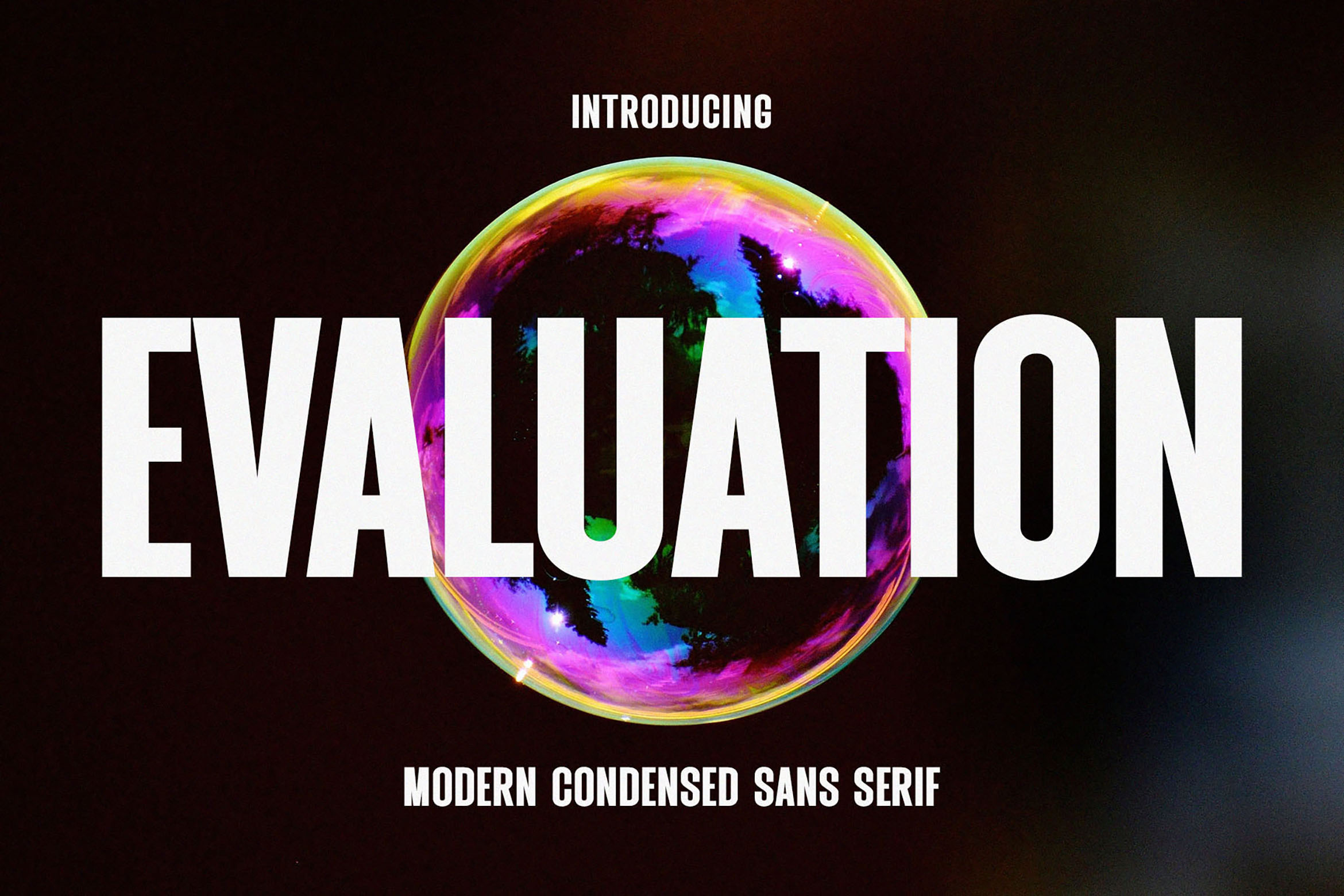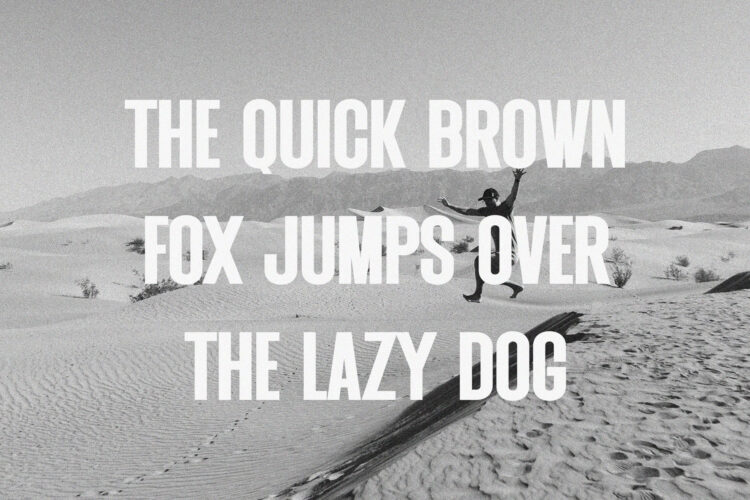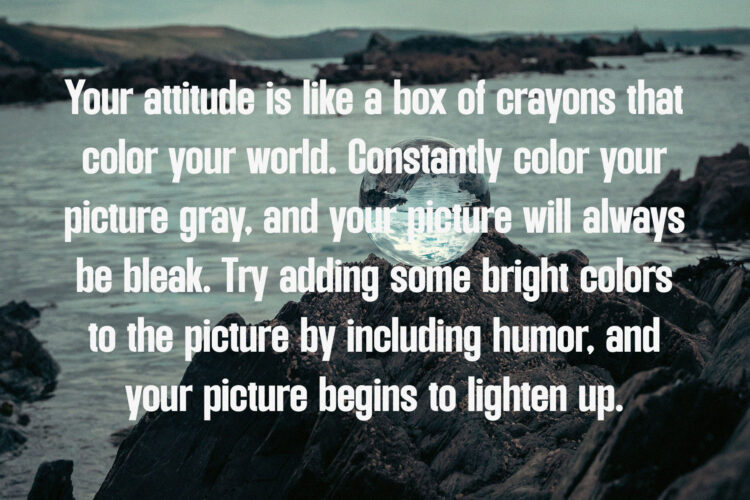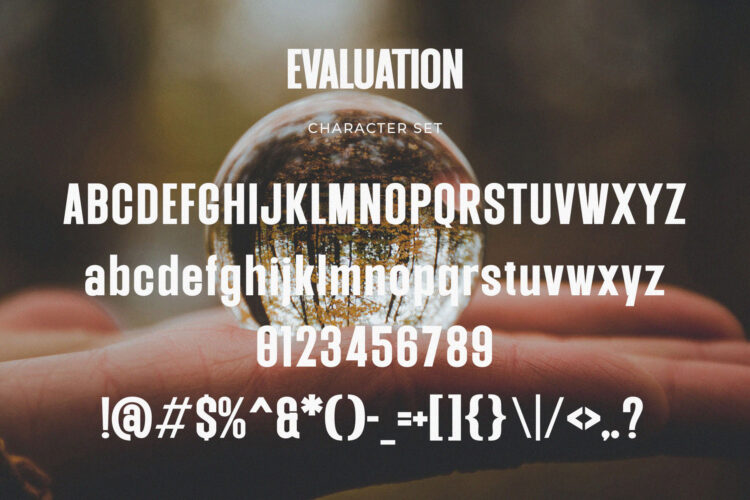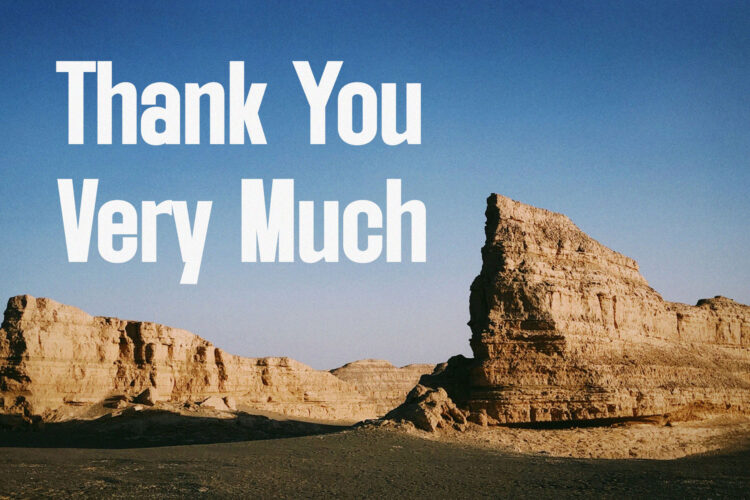
Introducing our new Evaluation, modern sans serif font with elegant style this is perfect for branding, logos, invitation, magazines, product packaging and more.
Evaluation – Modern Condensed Sans